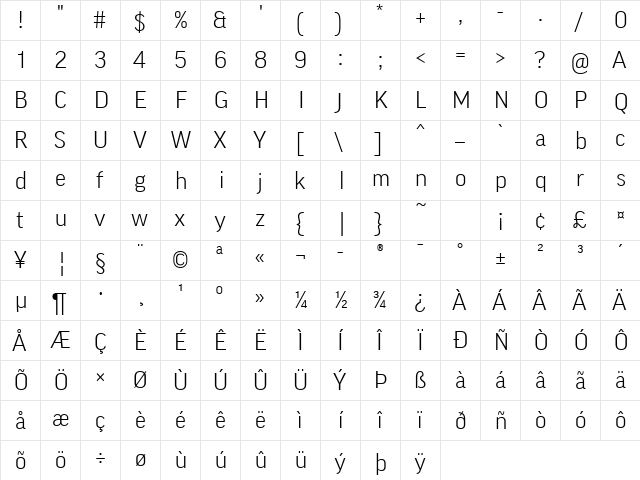
GoodLF-Light Regular
| Foundry | FSI Fonts und Software GmbH |
| Designer | Lukasz Dziedzic |
Design Context for GoodLF-Light Typeface
GoodLF-Light takes a measured approach to typography — its balanced proportions and neutral character make it a reliable workhorse for both digital and print work. The delicate stroke weight brings airiness and refinement to layouts.